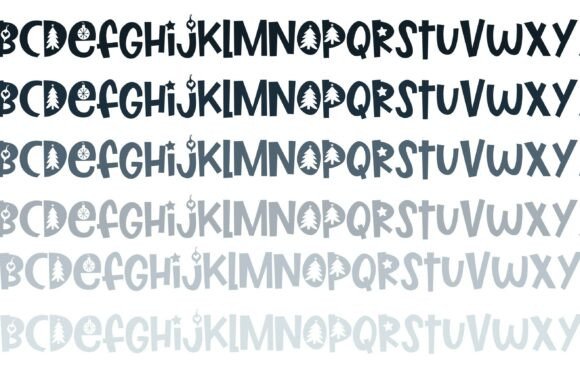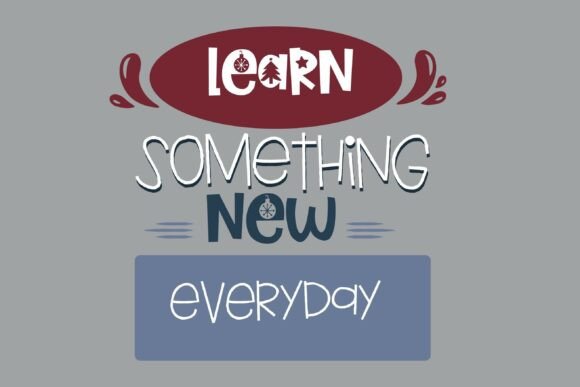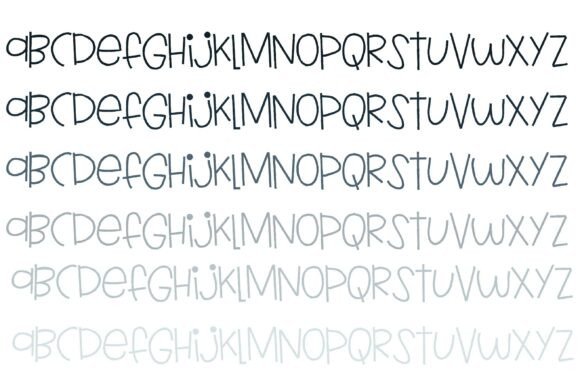
Introduction to Marshberry Merry Trio Font
As you sit down to plan your holiday creative project, the search for the perfect design resource can be overwhelming. You want something that captures the magic of the season, yet still conveys sophistication and elegance. That’s where the Marshberry Merry Trio Font comes in – a stunning combination of a hand-crafted decorative font, a serif version, and a perfectly coordinated print, along with a bonus tag dingbat font.
This versatile font trio is a game-changer for designers, offering endless possibilities for creating layered headlines, elegant social media banners, personalized gift tags, boutique branding, or festive holiday cards. With all family members combined, you get 8 fonts altogether, ensuring that your creative vision is brought to life with high-quality, unique designs.
Key Features of Marshberry Merry Trio Font
- Unique Blend of Whimsy and Playfulness: The Marshberry Merry Trio Font combines a mix of elegant and playful elements to create a distinctive design resource for creative projects.
- High-Quality Design: This font is designed with attention to detail and precision, making it a valuable asset for designers seeking a high-quality design resource.
- Transparent Background: The Marshberry Merry Trio Font features a transparent background, allowing designers to easily combine it with other design elements and create visually appealing compositions.
- Resolution-Independent: The font is designed to be resolution-independent, ensuring that it remains clear and legible at various sizes and resolutions.
- Perfect for Seasonal and Holiday Projects: The Marshberry Merry Trio Font is particularly well-suited for seasonal and holiday-themed projects, adding a touch of festive charm to designs.
Honest Review: Marshberry Merry Trio Font
As a designer, I’m always on the lookout for high-quality design resources that can elevate my creative projects. The Marshberry Merry Trio Font is one such find that I’d like to share with you.
What works well: ✨ This font is perfect for adding a touch of whimsy and playfulness to your designs. The Marshberry Merry Trio Font is a free download, making it an excellent addition to any design library. The font comes with a transparent background, allowing for seamless integration into any design project. The quality of the font is top-notch, with clean lines and a consistent aesthetic.
- High-quality, clean design
- Perfect for adding a playful touch to designs
Overall, the Marshberry Merry Trio Font is a great addition to any designer’s library. Its unique aesthetic and high quality make it an excellent choice for creative projects. With a little caution regarding commercial use, I highly recommend this font to anyone looking for a fun and engaging design resource.
The Marshberry Merry Trio Font is a high-quality design resource perfect for creative projects that require a touch of elegance and whimsy. With its transparent background, this font is ideal for use in a variety of applications, from digital to print.
To get the most out of the Marshberry Merry Trio Font, try combining it with other design elements, such as graphics and textures, to create a unique and eye-catching visual effect.
The Marshberry Merry Trio Font is perfect for use in a variety of creative projects, including invitations, greeting cards, and social media graphics. Its elegant and whimsical design makes it ideal for use in projects that require a touch of sophistication and fun.